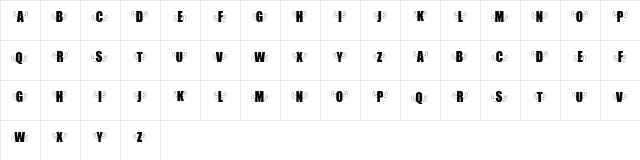
KR Strong Man Regular
Design Context for KR Strong Man Typeface
KR Strong Man is a composed and adaptable typeface that performs quietly and consistently across a wide range of design contexts.